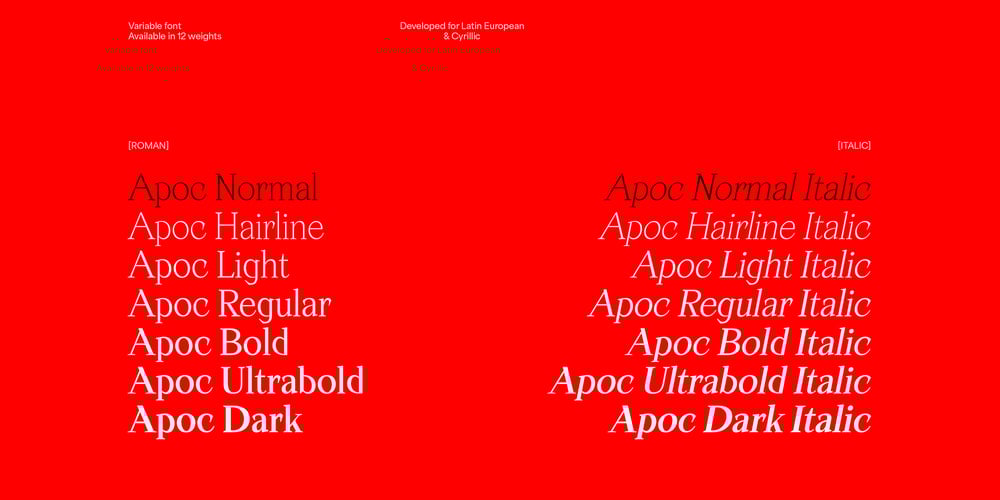
Apoc Normal VF
Apoc Normal VF font
Apoc Normal VF Font Family was designed by Matthieu Salvaggio and published by Blaze Type. Apoc Normal VF contains 2 styles and family package options. Apoc embodies the battle between Light and Dark. Apoc(alypse)’s sharp character set & alternates were released in 2018 and updated in 2020 & 2022 by Matthieu Salvaggio. Defined by designers as the most popular typeface of standout contemporary independent design, Apoc is an elegant, sharp, expressive font family, perfect for bold standout displays focusing on heavy font uses.This font is perfectly suited to sharpen your website headlines, art exhibition’s posters or even your album covers.